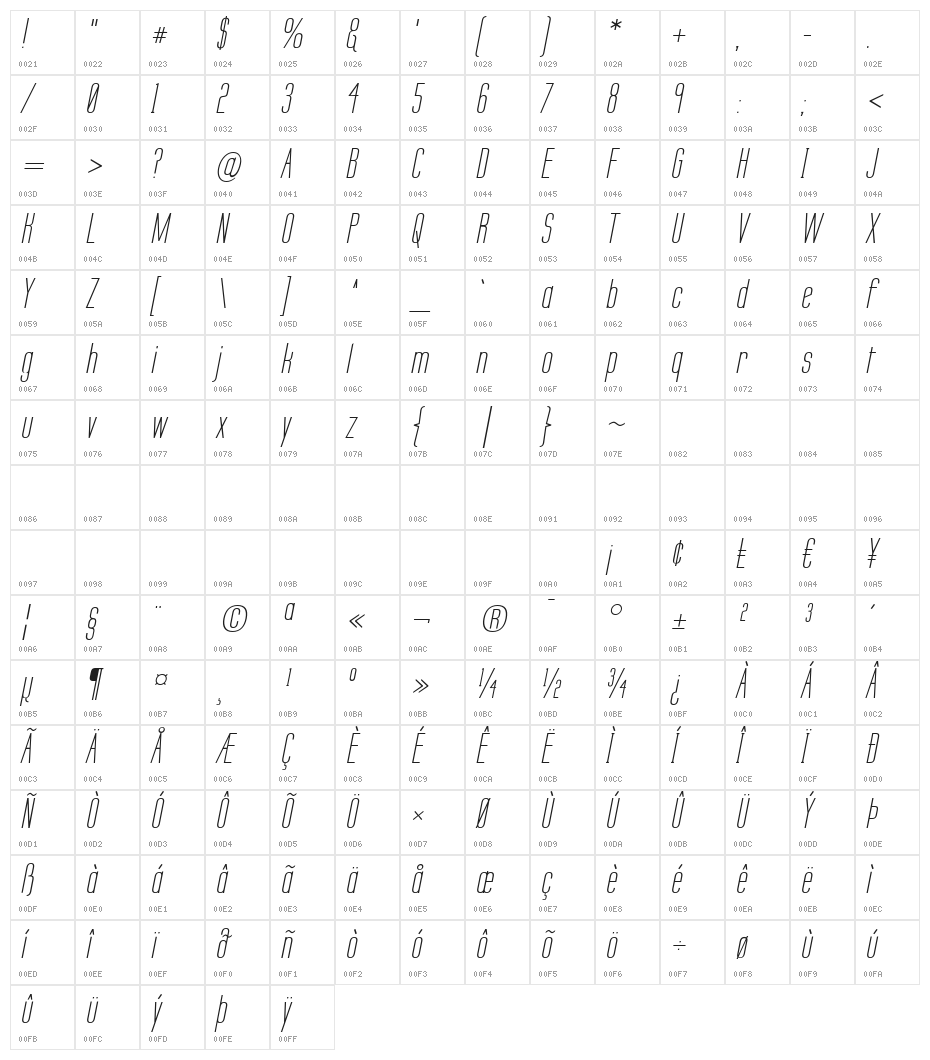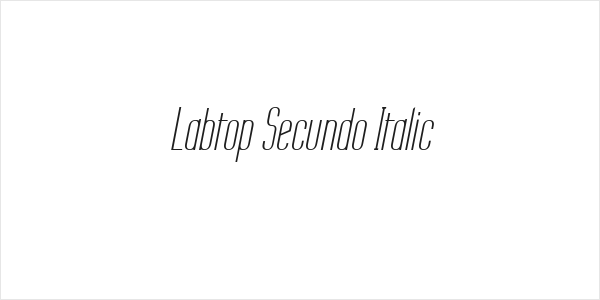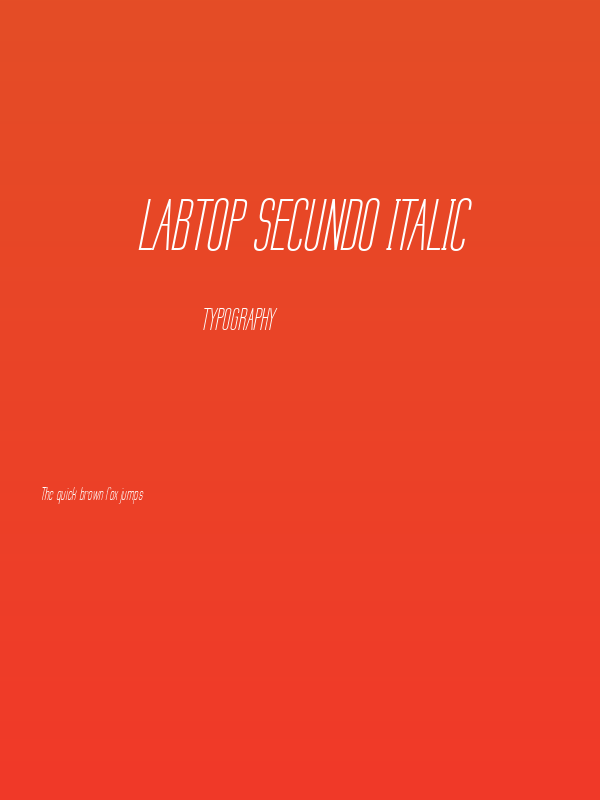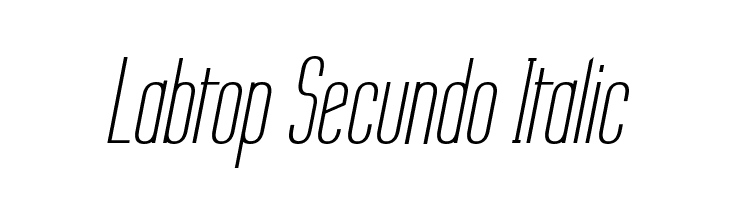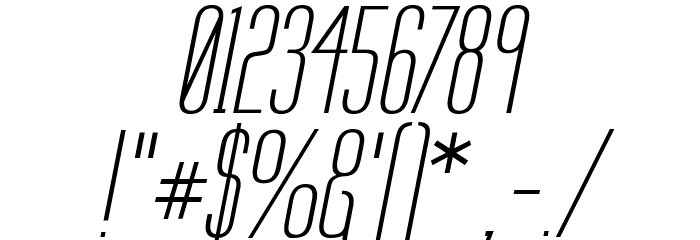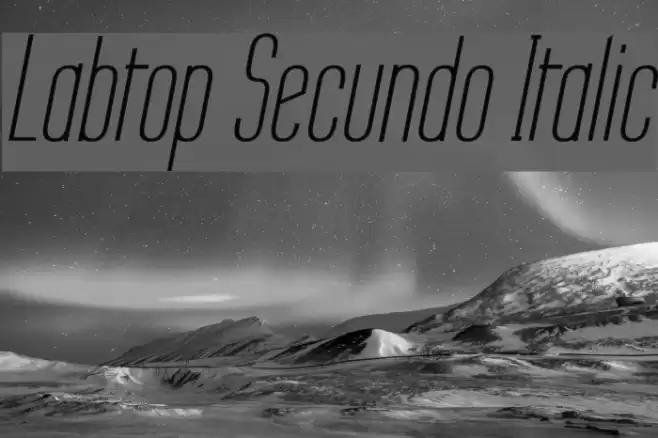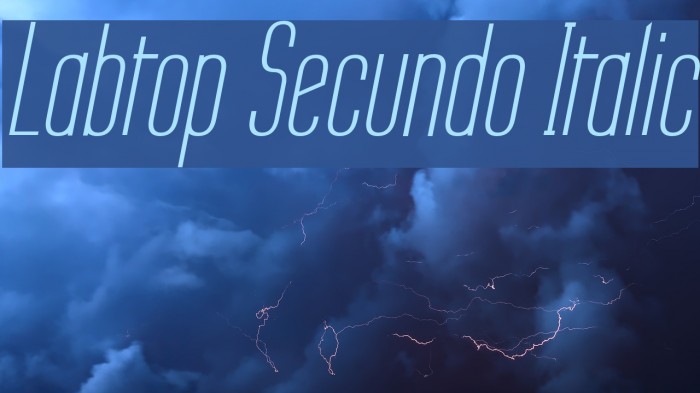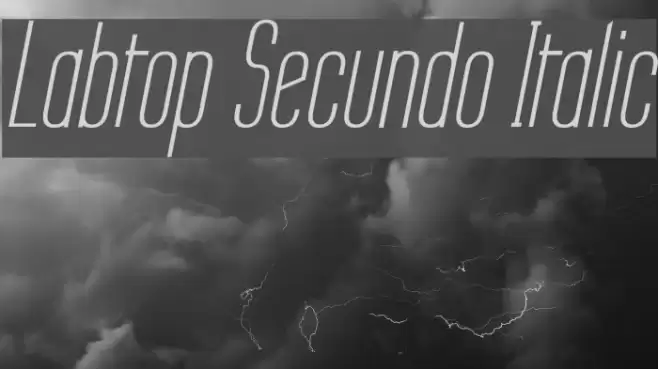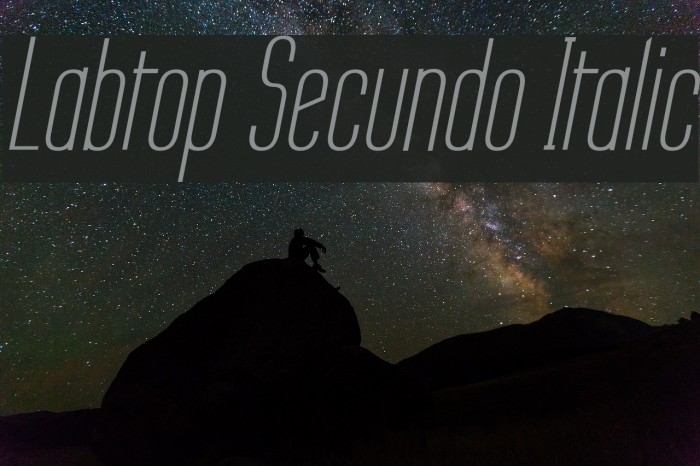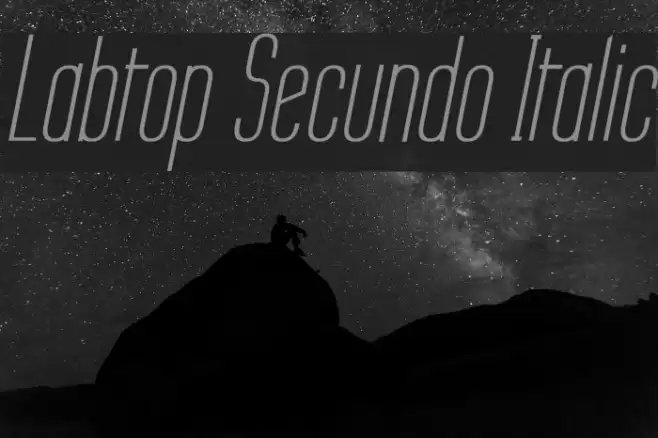
Labtop Secundo Italic Font
Labtop Secundo Italic Description
This font exhibits a sleek, modern design with a distinct italic slant, giving it a dynamic and forward-moving appearance. The characters are elongated and narrow, contributing to a condensed width that enhances its elegant and sophisticated look. The strokes are consistent in thickness, providing a low contrast that maintains readability while adding a touch of minimalism. The overall style is contemporary, making it suitable for projects that require a clean and stylish aesthetic. The font's unique characteristics make it ideal for branding, editorial design, and digital interfaces where a modern and professional impression is desired.
| Use Case | Headlines, Logos, Editorial Design |
| Proposed Projects | Ideal for branding, editorial design, digital interfaces, and projects requiring a modern aesthetic. |